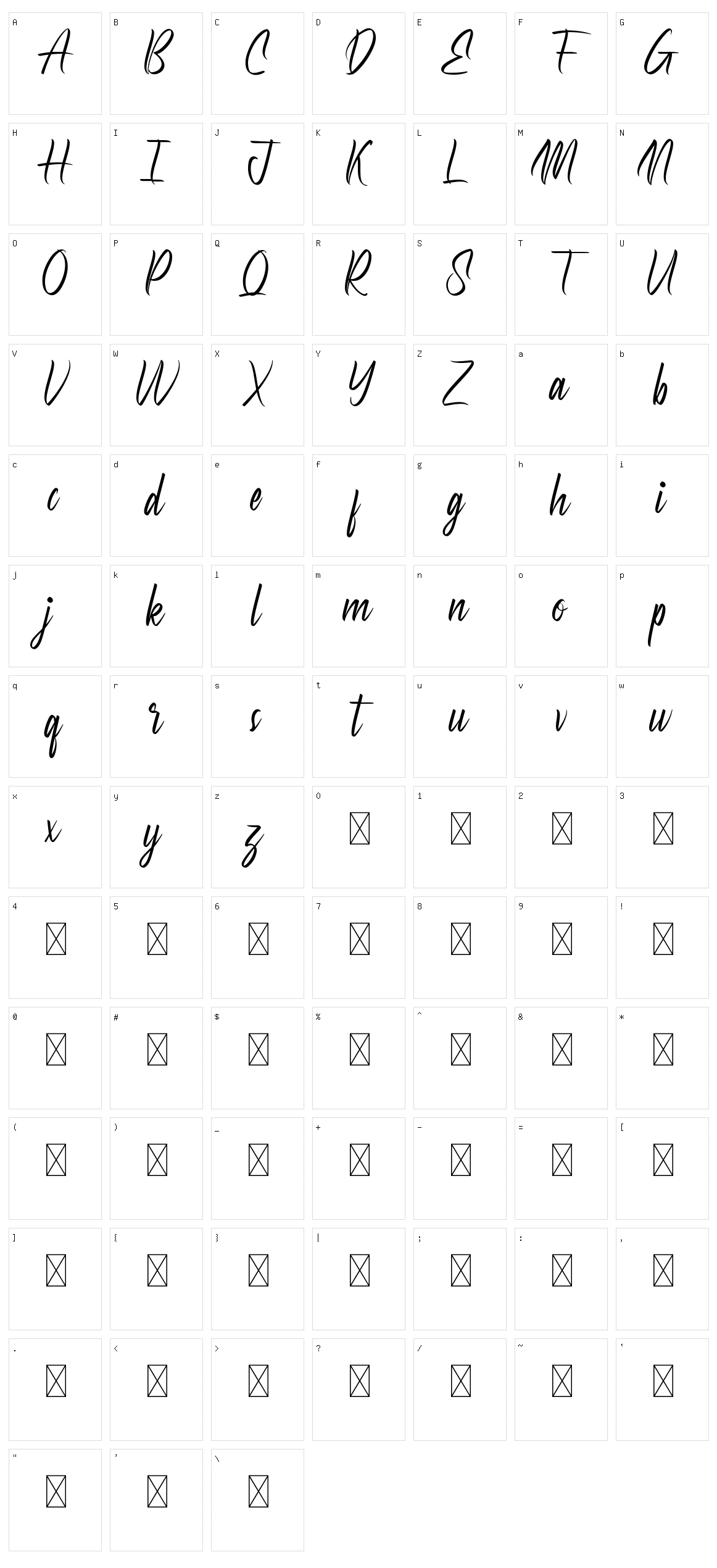
The free font Slovakian is carefully designed by RaisProject, showcasing a thoughtful balance of creativity and usability and falls under the Script font style. When you download the ZIP file, it contains only 34.26 KB of font files, making it lightweight and quick to download. Please review the license details below to understand permitted usage and distribution rights. If license information is not available, we recommend using this font for personal projects only or contacting the author directly for commercial usage permissions.